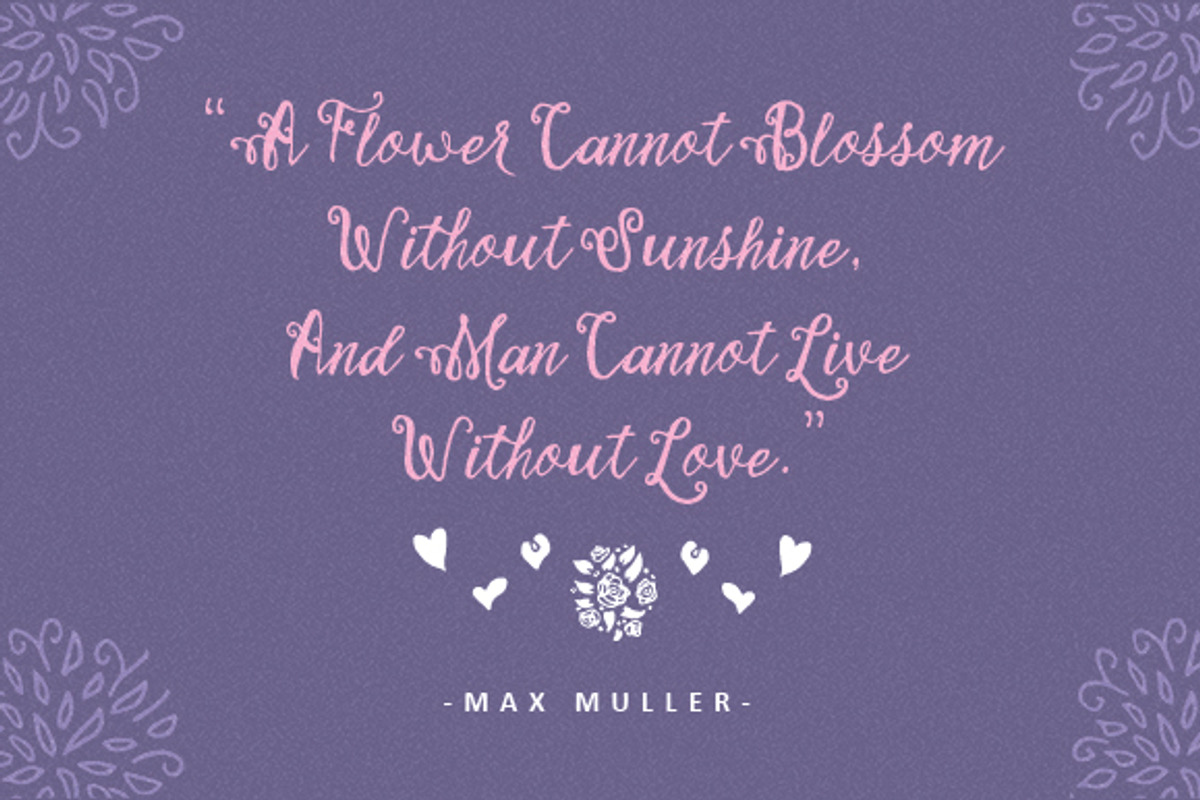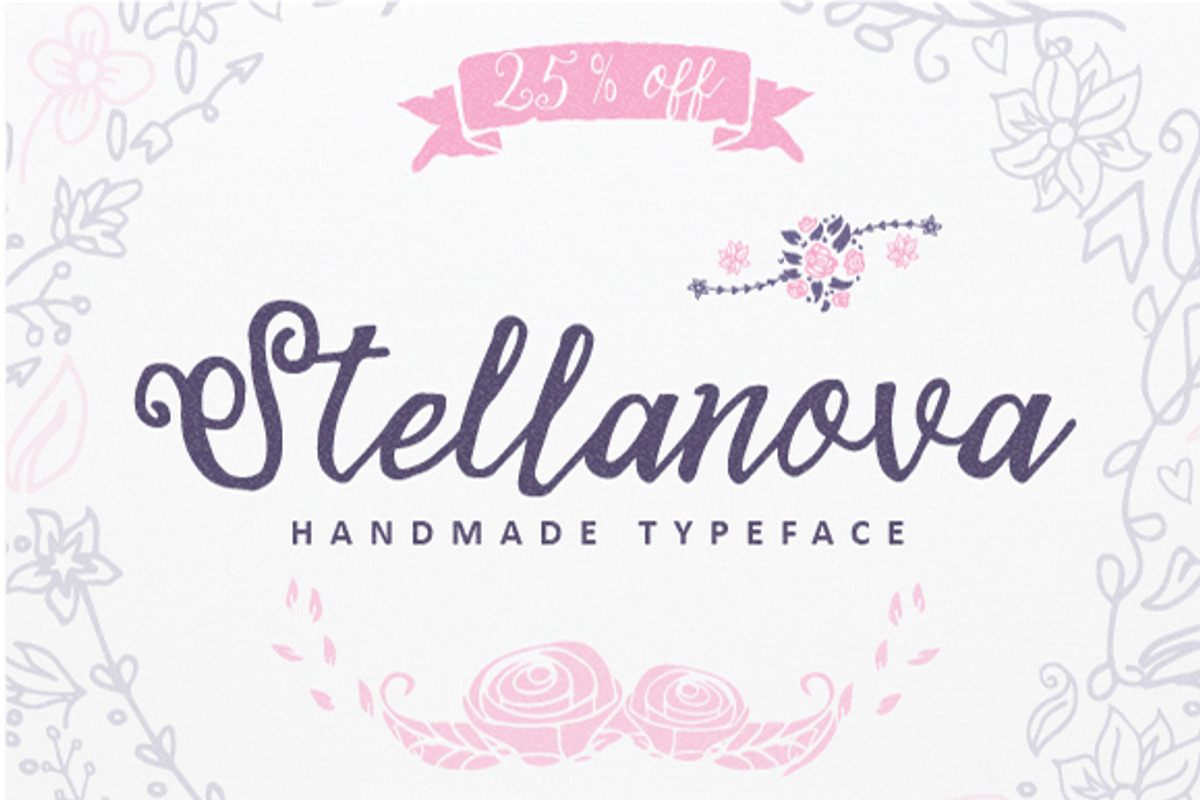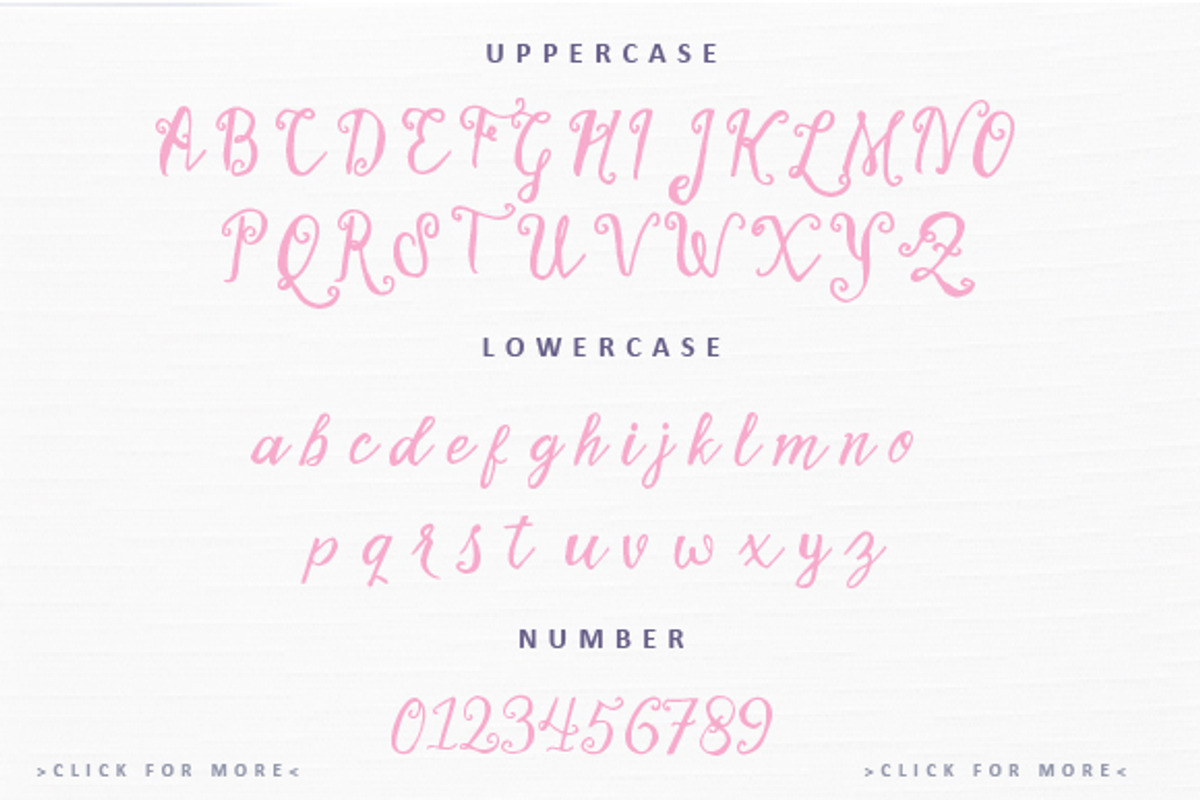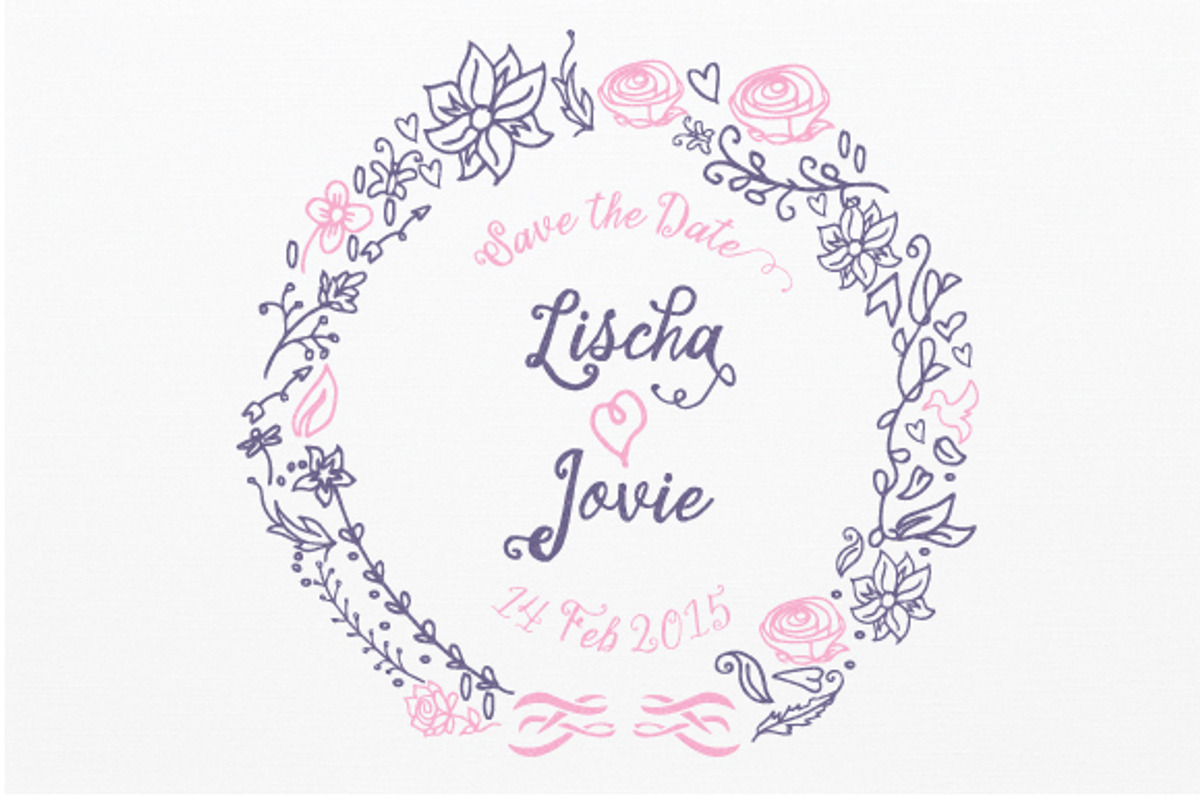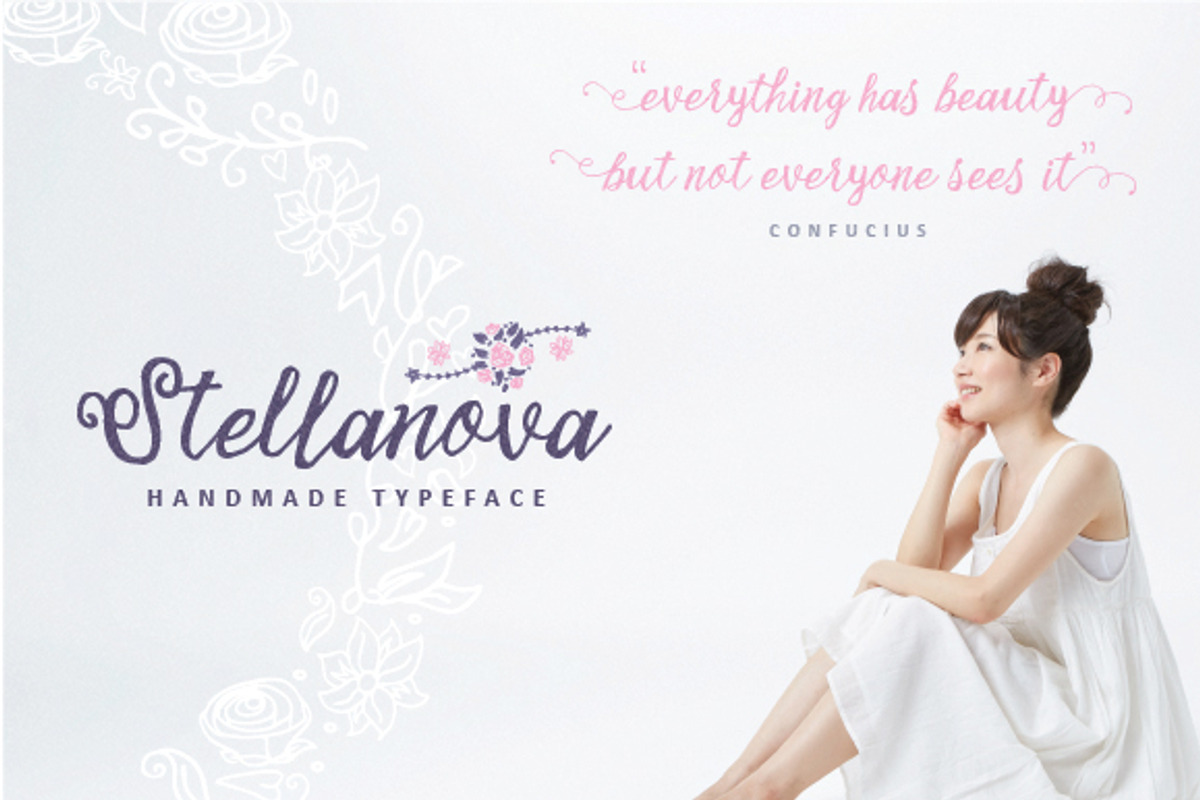
Stellanova Typeface
Stellanova Typeface by ianmikraz is a font selected for branding, posters, packaging, typography.
- Mix and match the alternate characters to add an attractive message to your design.
- 338 glyphs and alternate character contain with opentype features.
Why Stellanova Typeface is worth a look
Stellanova Typeface by ianmikraz fits naturally into Branding, posters, packaging, typography.